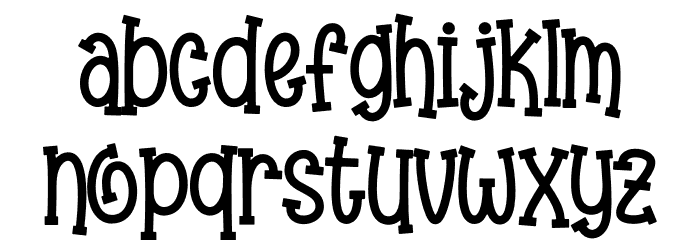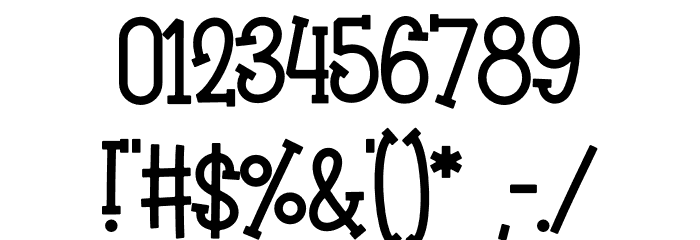
Kinder Flower Font
This playful and whimsical font features a unique, hand-drawn style with a slightly uneven baseline, giving it a lively and energetic appearance. The characters are bold and rounded, with a slight tilt that adds to the casual and friendly feel. The uppercase letters are tall and slightly narrow, while the lowercase letters maintain a consistent height, creating a harmonious balance. The numbers and special characters follow the same playful design, making this font versatile for various creative projects. Its distinct personality makes it ideal for children's materials, playful branding, and any design that requires a touch of fun and creativity.
A playful, hand-drawn font with a whimsical and energetic style.
- Font: Kinder Flower
- Proposed Projects: Ideal for children's books, playful branding, greeting cards, and creative posters.
- Category: Handwritten
- Overall Style: Playful